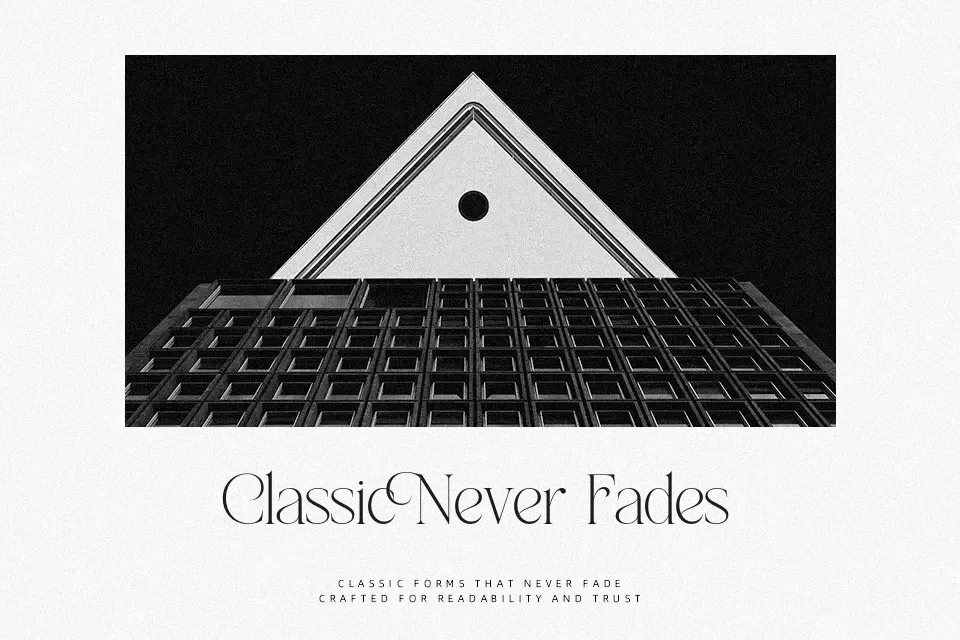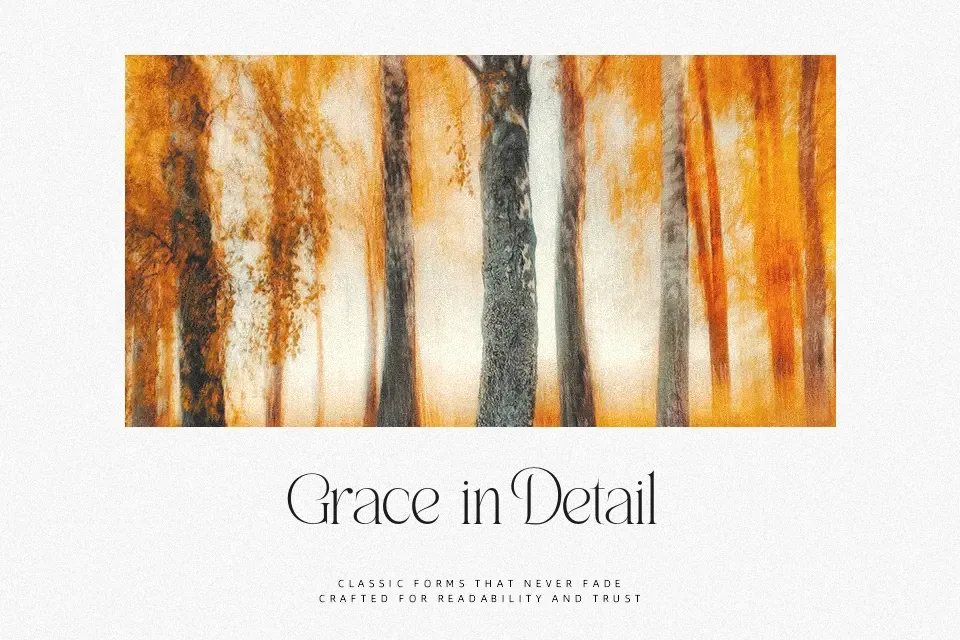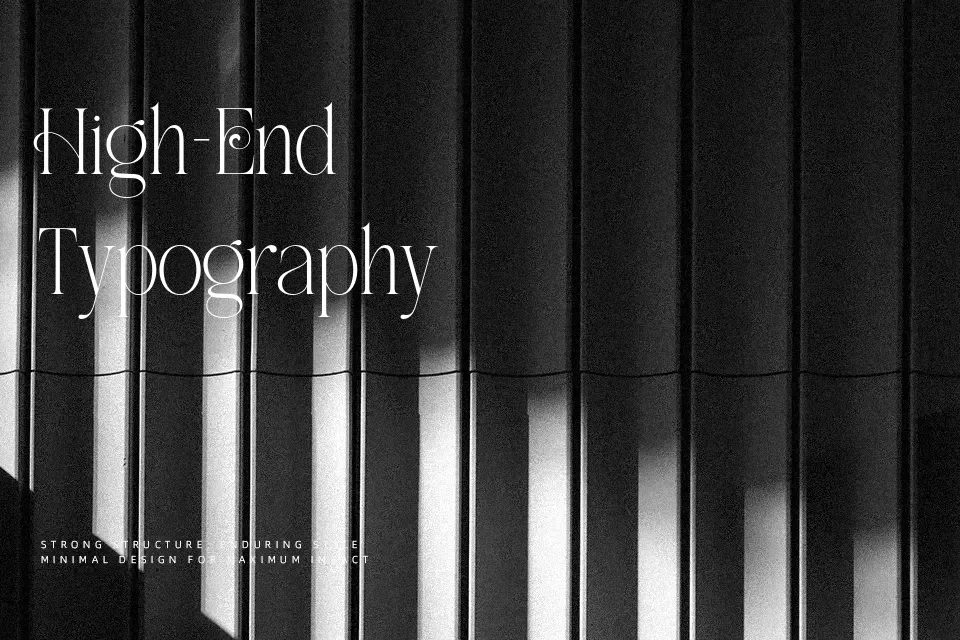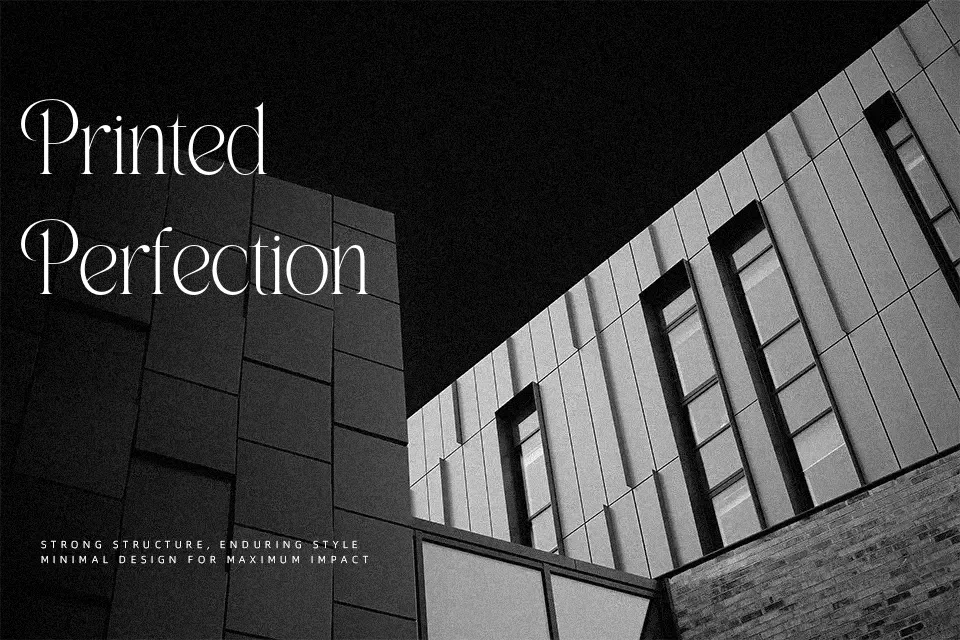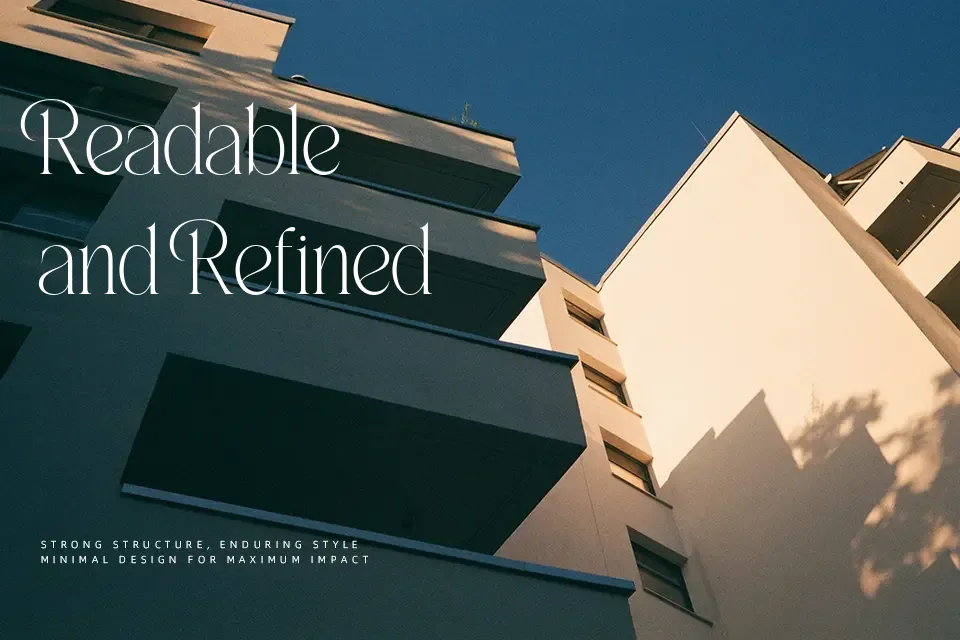
Theater Brillion Font
Theater Brillion Font captures immediate attention with assertive vertical weight, sharp serifs, and elegant nostalgic curves. The letterforms feature elongated proportions and disciplined horizontal metrics, while moderately compact character spacing preserves rhythm throughout display settings. Strokes transition rapidly from thick stems to delicate hairlines, lending considerable drama to book jackets, promotional signage, and theatrical branding. In practical application, the typeface functions most effectively at generous display sizes where decorative nuances remain crisp and articulate. Conversely, the heavy dark-to-light variance and constricted internal counters make the font unsuitable for continuous body copy or small interface labels.
Best For: theatrical movie posters, boutique wine packaging, vintage book cover titles
Not Ideal For: long paragraph text, mobile app interface labels, dense editorial body copy
Perfect for branding, film, and headline, with a classic and decorative style.